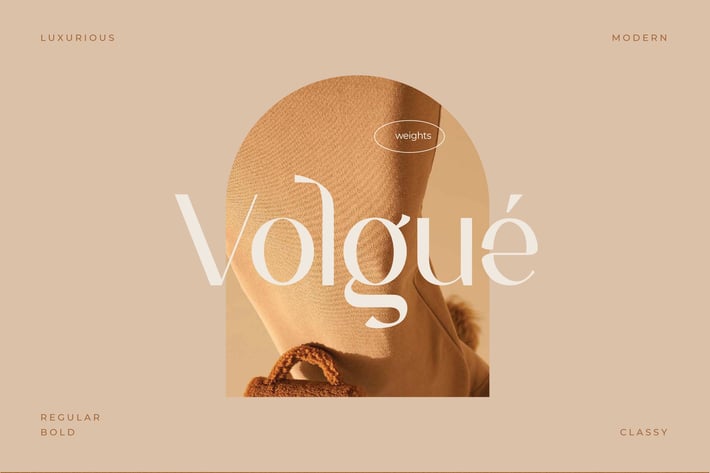
Volgue - Chic Modern Typeface
Volgue is a classic modern font that is both stylish and unique with smooth curves and beautiful ligatures, tons of special alternative glyphs, ornament and multilingual support. It's a very versatile font that works great in large and small sizes. Volgue is perfect for branding projects, Logo design, Clothing Branding, product packaging, magazine headers, or simply as a stylish text overlay to any background image.
2 Weights font
Stylistic Alternates & Ligatures